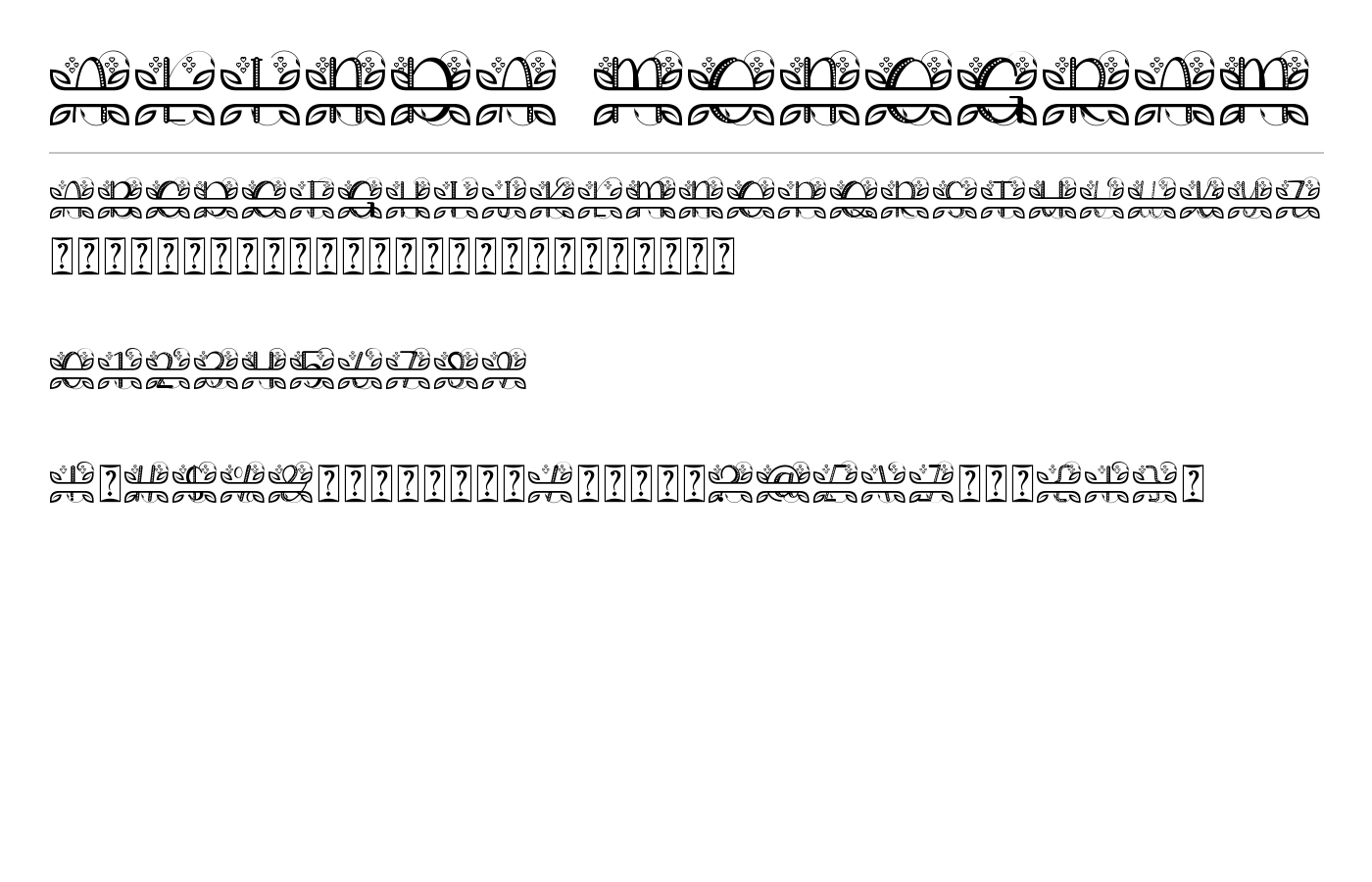
Alinda Monogram is a decorative serif font featuring elaborate, nature-inspired ornamentation with leaf and vine motifs integrated into each letter, giving it an elegant and organic feel. Its unique style makes it ideal for luxury branding, monograms, wedding invitations, and other sophisticated design projects that seek to convey a refined, artistic touch.
ALINDA MONOGRAM Font
About ALINDA MONOGRAM Font
| Font family | ALINDA MONOGRAM Font |
| Designer | Alfin Ridhowi |